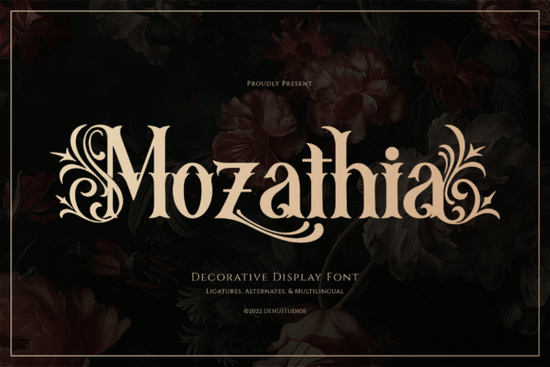
If you design book covers, branding, or merchandise with a dark, romantic, or historical feel, you already know that finding the right display font can make or break the project. Mozathia Font offers a blend of gothic architecture and vintage calligraphy that fits that niche perfectly. It sits somewhere between a classic blackletter and an ornate decorative typeface, with sharp serifs and flowing floral swashes that add a theatrical touch.
What makes Mozathia different from other blackletter fonts?
Most blackletter fonts fall into one of two camps: strict historical reproductions or rough, modern interpretations. Mozathia takes a different path. It keeps the strong structural stems you expect from gothic lettering, but softens the edges with sweeping, vine-like ornaments that bloom from the terminals. The dagger-like serifs add an edge without making the text unreadable.
What really stands out are the ornamental accents. These aren't generic flourishes they feel like hand-drawn calligraphy from a luxury vintage label. The swashes wrap around letters naturally, which means you can use them as decorative elements in logos, monograms, or packaging without needing to add extra vector work.
What kind of projects actually benefit from this font?
Because of its strong personality, Mozathia works best when it takes center stage. Here are a few real-world uses where it shines:
- Dark fantasy and romance book covers – The dramatic contrast between thick stems and sharp serifs reads well at display sizes on both print and digital covers.
- Winery and distillery labels – If you're branding a craft spirit or a vintage wine, the baroque flourishes give an authentic old-world feel without looking like a generic script font.
- Gothic apparel and merchandise – T-shirt designs, hoodie prints, and patch logos benefit from the font's bold structure and ornate details.
- Tattoo studio branding – The dark, romantic aesthetic aligns well with custom tattoo shop identities, especially for flash sheets or storefront signage.
- Tarot and mystical merchandise – Card decks, oracle boxes, and spiritual branding need typography that feels both ancient and elegant. Mozathia delivers that balance.
How do you use Mozathia without overdoing it?
An ornate font like this can overwhelm a design if you use it everywhere. Here are a few practical tips from designers who work with decorative typefaces regularly:
- Use it for headlines only. Reserve Mozathia for titles, logos, or short phrases. Body text should stay in a simpler, more readable font.
- Pair it with a clean serif or sans-serif. A neutral companion font lets Mozathia breathe. Try a thin geometric sans or a classic garalde for contrast.
- Watch your spacing. The swashes and flourishes need room. Increase letter spacing slightly and give the text plenty of margin space.
- Test readability at different sizes. At very small sizes, the ornate details can blur together. Use it at 24pt or larger for best results.
Where does Mozathia fit in your font library?
If you already own a few blackletter fonts, Mozathia adds a decorative option that fills a gap between strict gothic and decorative script. It's not a replacement for a standard blackletter it's a specialty display font for projects where you want the lettering itself to be the visual centerpiece.
For print-on-demand sellers, this font works particularly well for niche products like gothic home decor, vintage-style posters, and mystical-themed merchandise. The ornamental swashes can be extracted and used as standalone design elements in mockups or patterns.
Small business owners branding a dark-academia or gothic-inspired shop will find the font matches that aesthetic without feeling like a Halloween decoration. It leans more toward elegant than spooky, which makes it usable year-round.
If you want to expand your options further, the Modern Blackletter Mega Bundle includes a range of similar styles that pair well with Mozathia for larger projects.
A quick checklist before you use Mozathia in a project